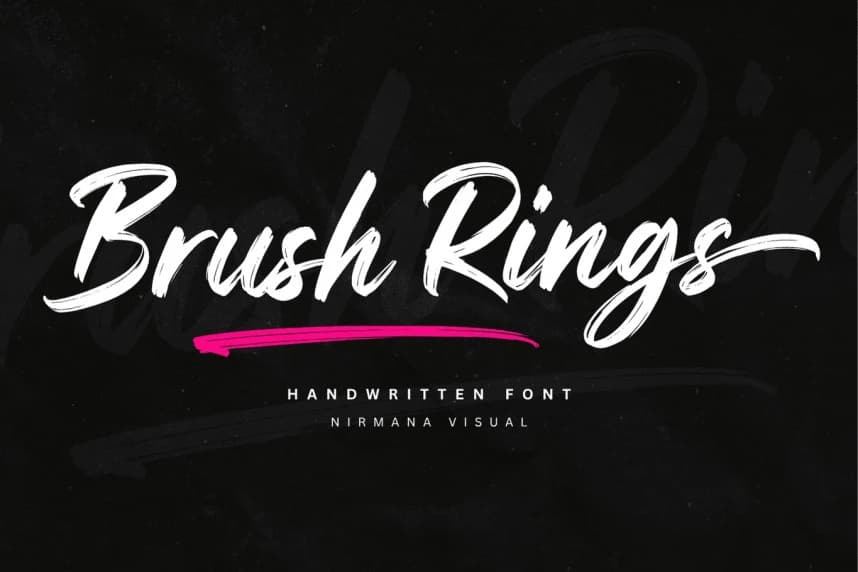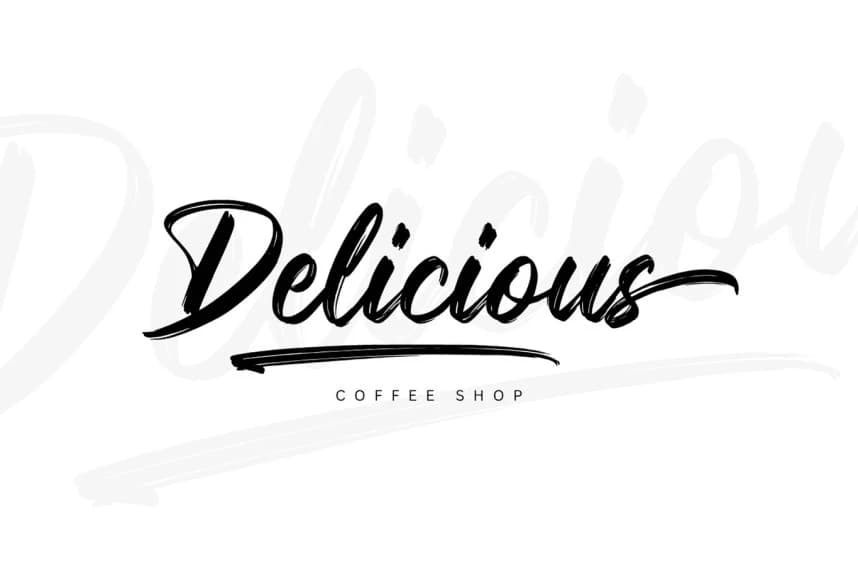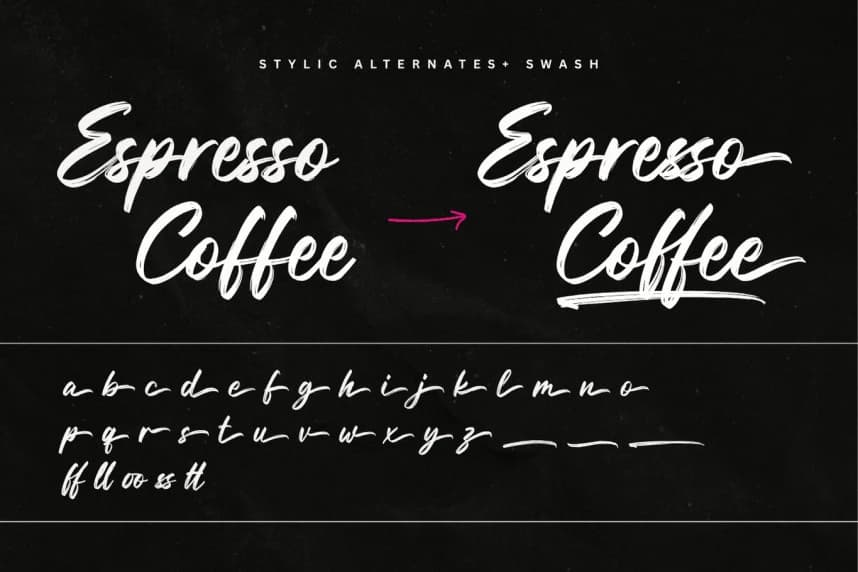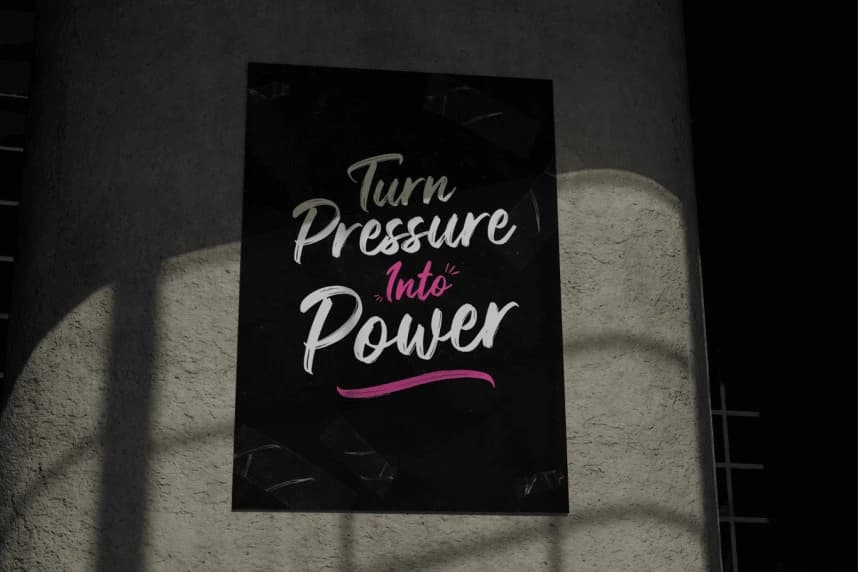
Brush Rings Font
Brush Rings Font, a premium handwritten font designed by Nirmana Visual. Crafted with realistic textures and organic strokes, this font perfectly captures the expressive, free-flowing motion of a real paintbrush.